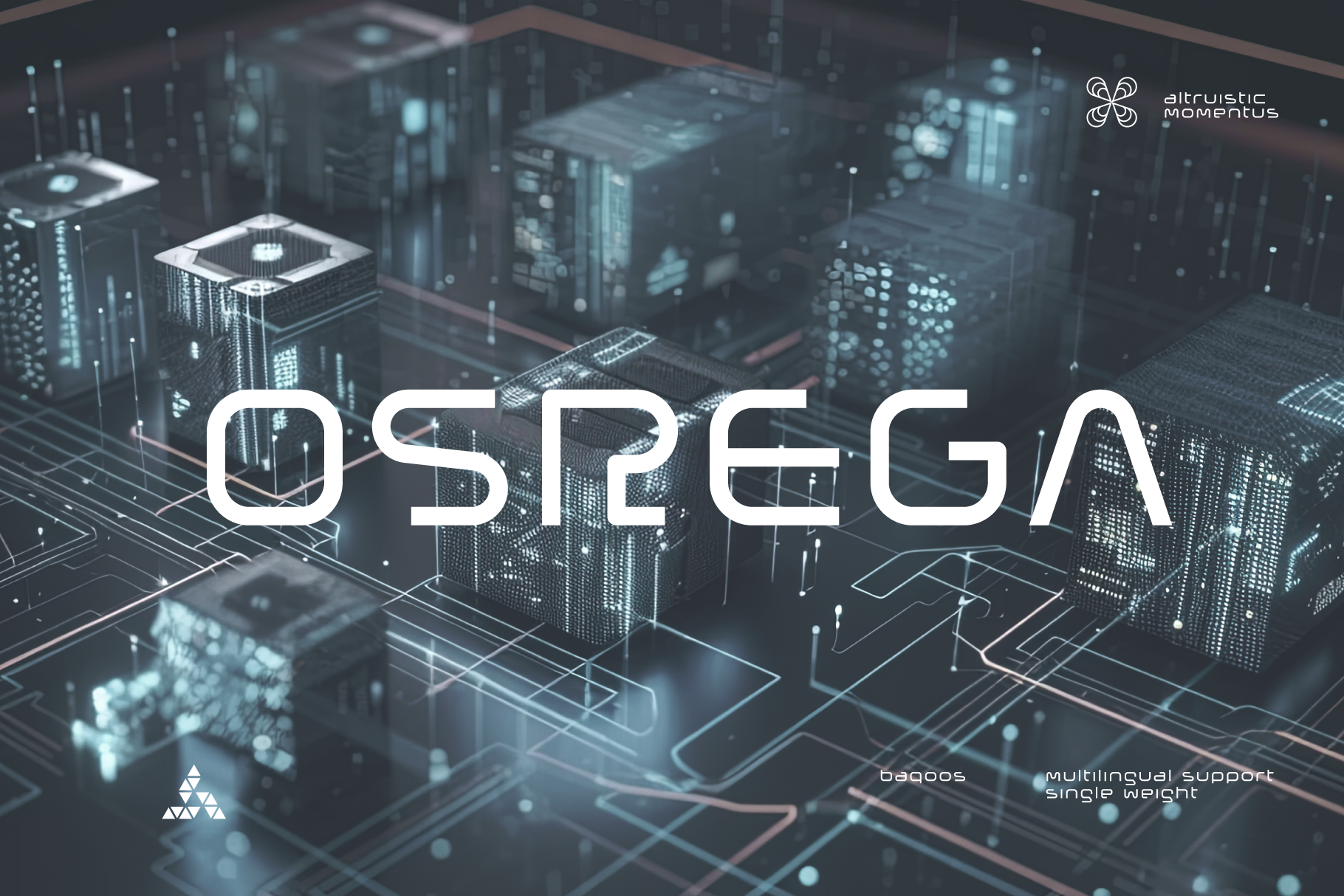
Osrega Tech Font
Osrega is an altruistic momentus mono lineal typeface apt for headline, editorial, branding, packaging, printed materials and typographic applications. 220+ glyphs including punctuation and numerical.